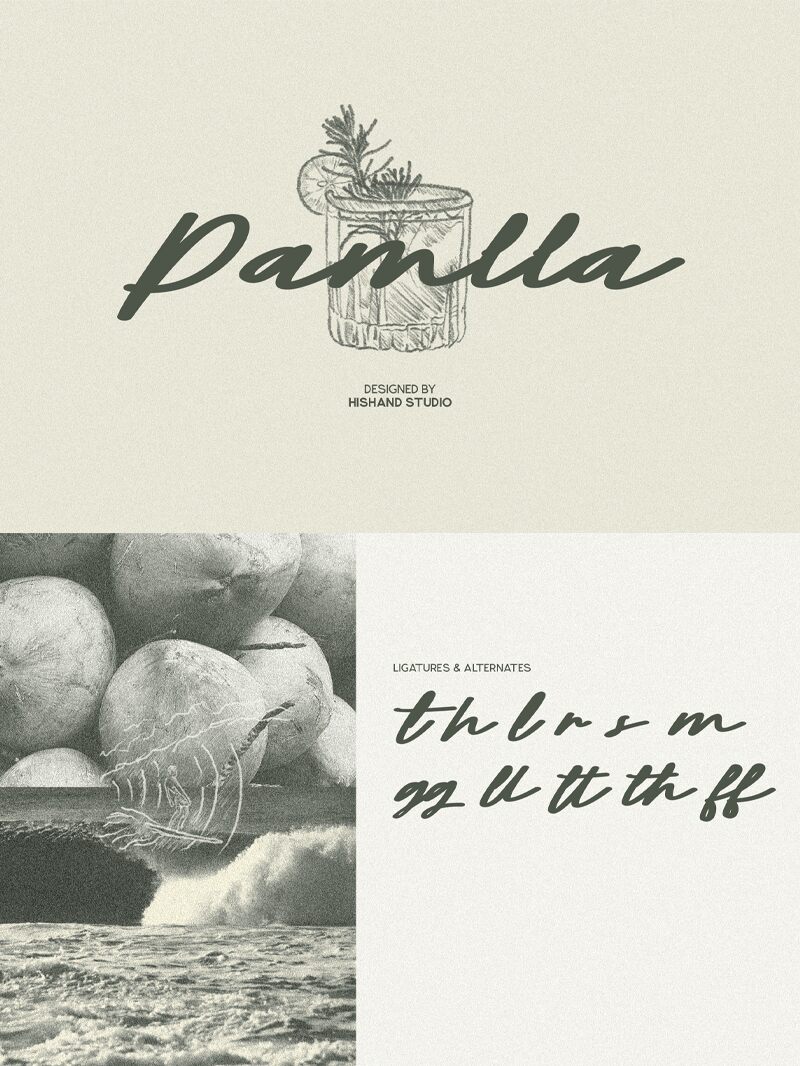
Pamlla font by Hishand Studio is a free brush font that perfectly captures the lively essence of handwritten style with a modern twist. The letters are naturally crafted to convey an authentic aesthetic with a relaxed sophistication that is artistic, stylish, and easily recognized. Energy flows through its characters which slightly vary in size and shape. Enjoy balance in letters’ curvature, classic forms, and stylish detailing.
Pamlla is the ultimate choice for those looking to elevate restaurant signboards, movie posters, branding visuals, magazine covers, and album covers. Additionally, the typeface can be used in newsletter designs, art quotes, book covers, merchandise designs, and other exciting projects.